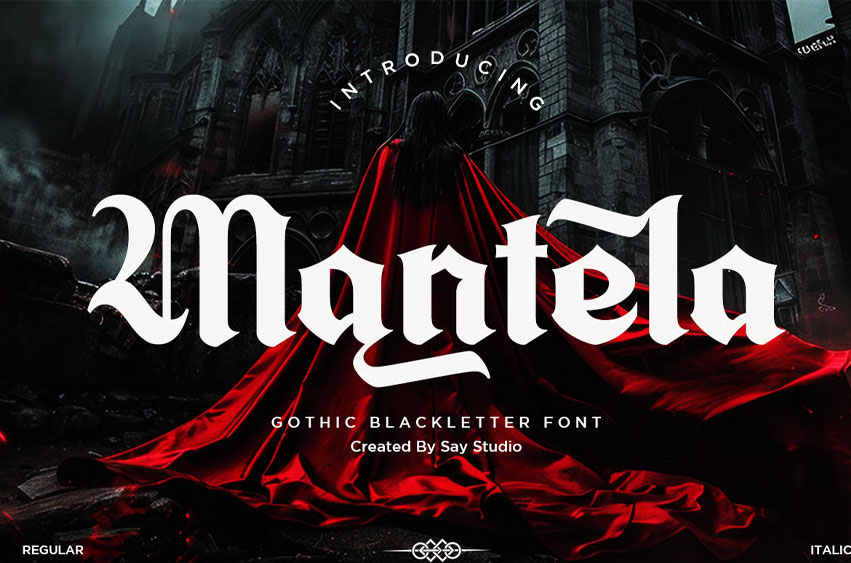
Mantela Font is a bold and dramatic Gothic Blackletter font designed for projects that demand power, darkness, and medieval elegance. With sharp strokes, expressive curves, and a haunting visual presence, Mantela is perfect for fantasy titles, horror designs, metal band logos, dark branding, posters, book covers, gaming graphics, and vintage-inspired layouts.
Available in Regular and Italic, this font brings an intense atmosphere to any creative project.
- Stylistic Alternates